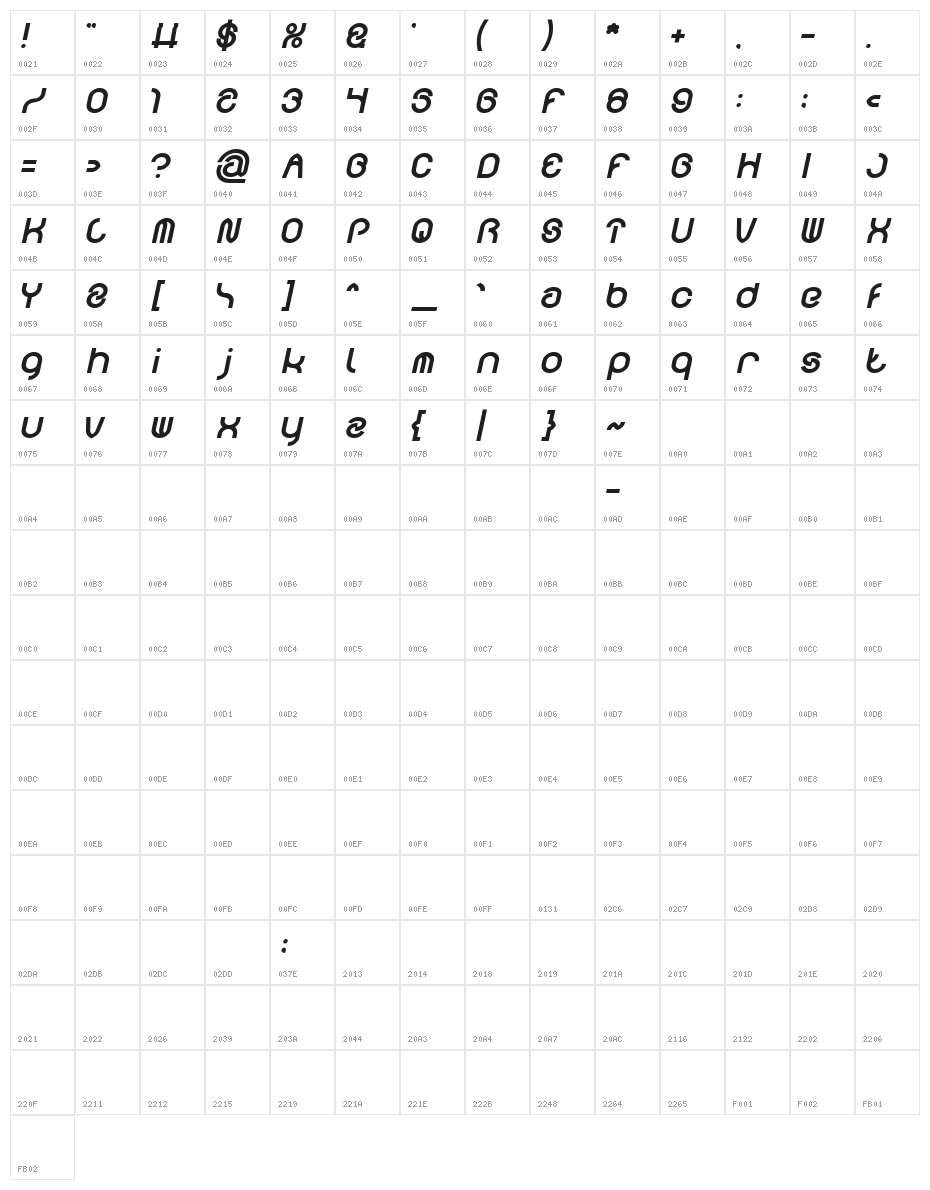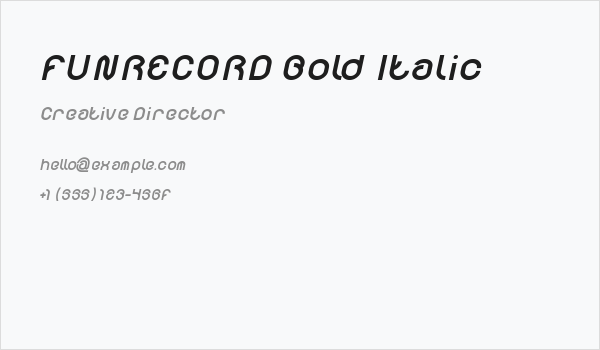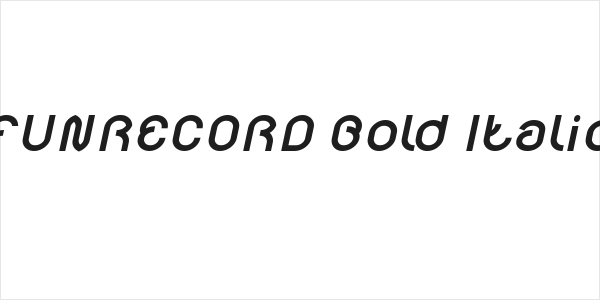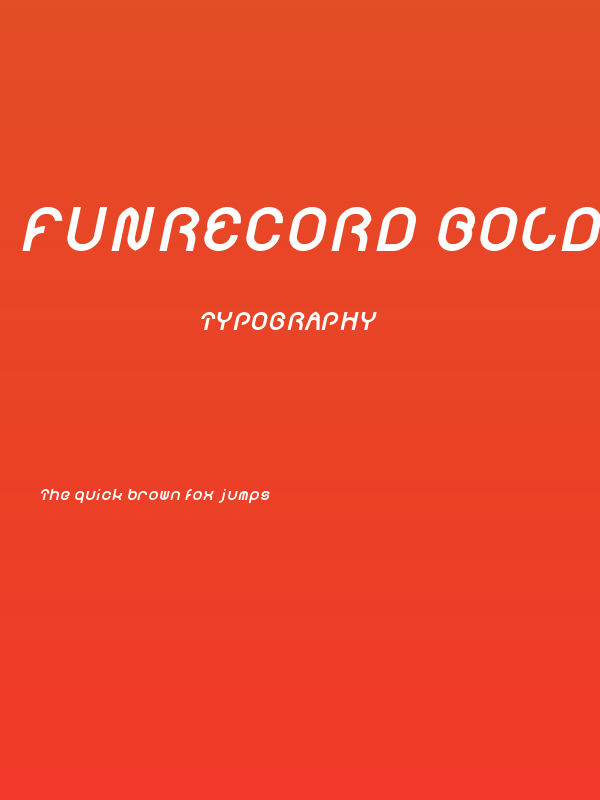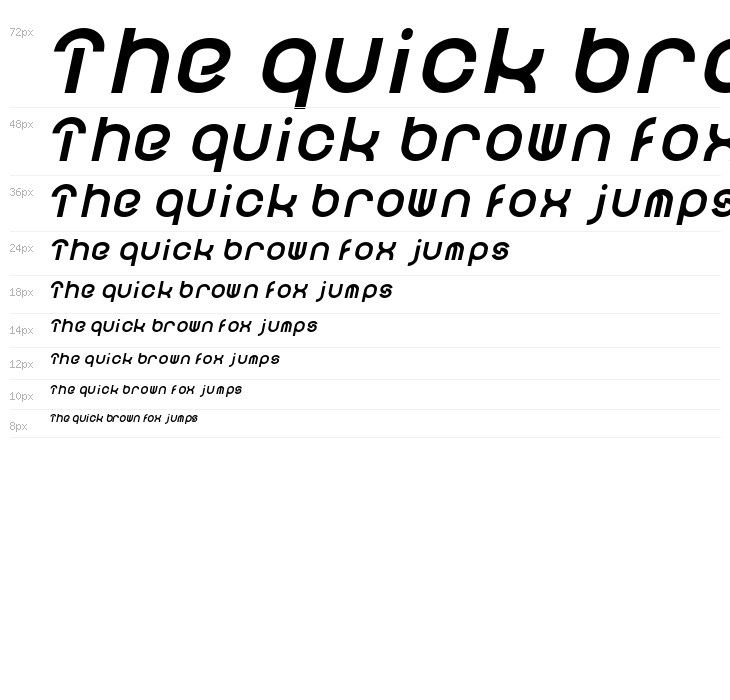
FUNRECORD Bold Italic Font
FUNRECORD Bold Italic Description
This font exhibits a bold and italicized style with a playful and dynamic appearance. The characters are rounded and slightly slanted, giving a sense of movement and energy. The uppercase and lowercase letters maintain a consistent style, with smooth curves and a modern flair. Numbers and special characters are designed to match the overall aesthetic, ensuring uniformity across all elements. The font's bold weight and italic slant make it stand out, suitable for projects that require a lively and engaging typeface.
| Proposed Projects | Ideal for branding, posters, and headlines that require a bold and energetic look. |